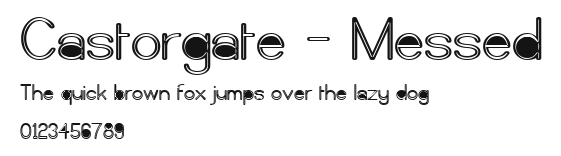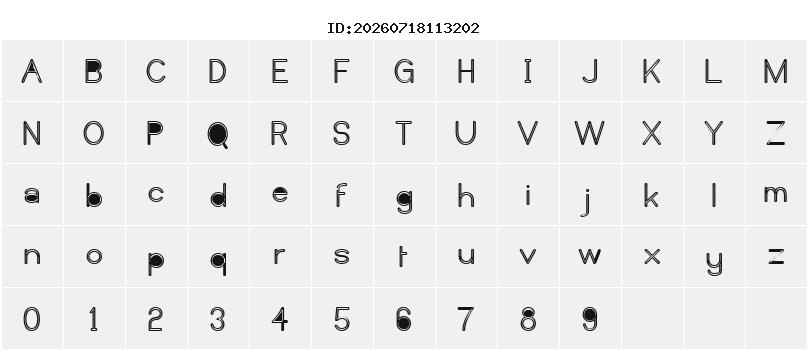
• Font Name: Castorgate - Messed
• Full Font Name: Castorgate - Messed
• Designer: Graham Meade
About Castorgate - Messed.ttf
Castorgate - Messed.ttf is a modern, elegant sans-serif font designed for ultimate readability and visual harmony. Perfect for branding, headlines, web design, and print materials.